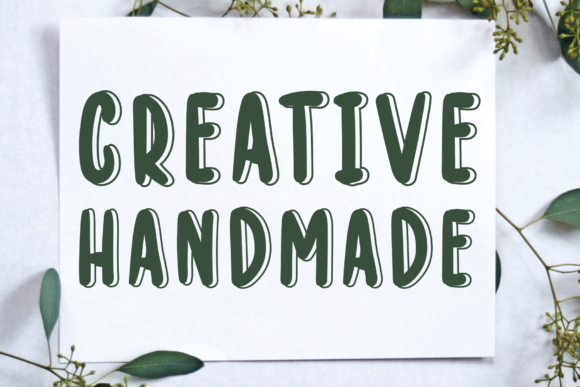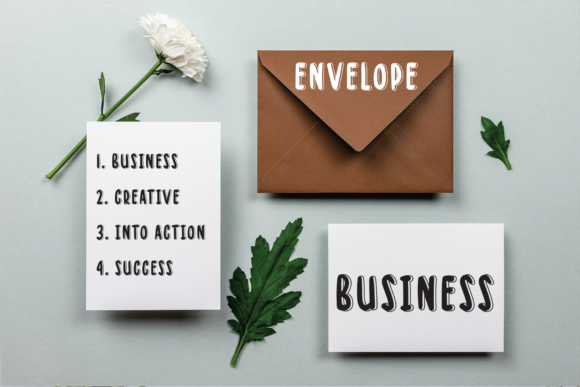
About Welcome Home Font
Welcome Home is a simple, neat and chunky lettered handwritten font. It is suitable for creating any branding, product packaging, invitation, quote, t-shirt, label, poster, logo that you wish to develop.